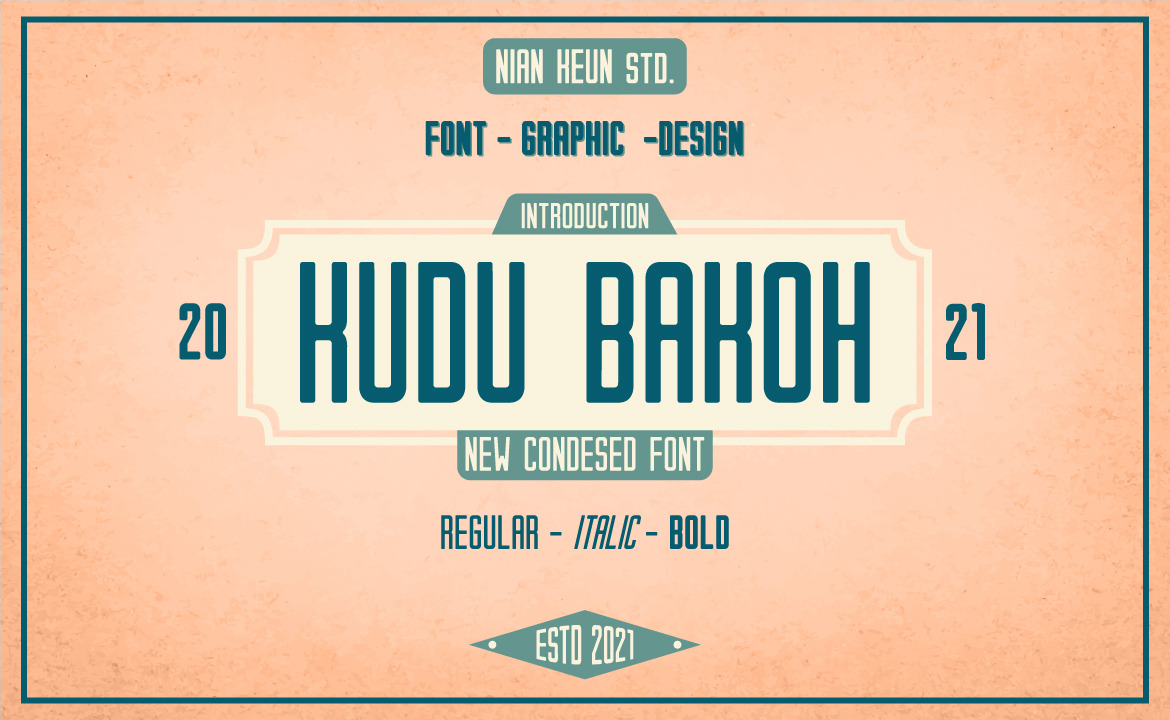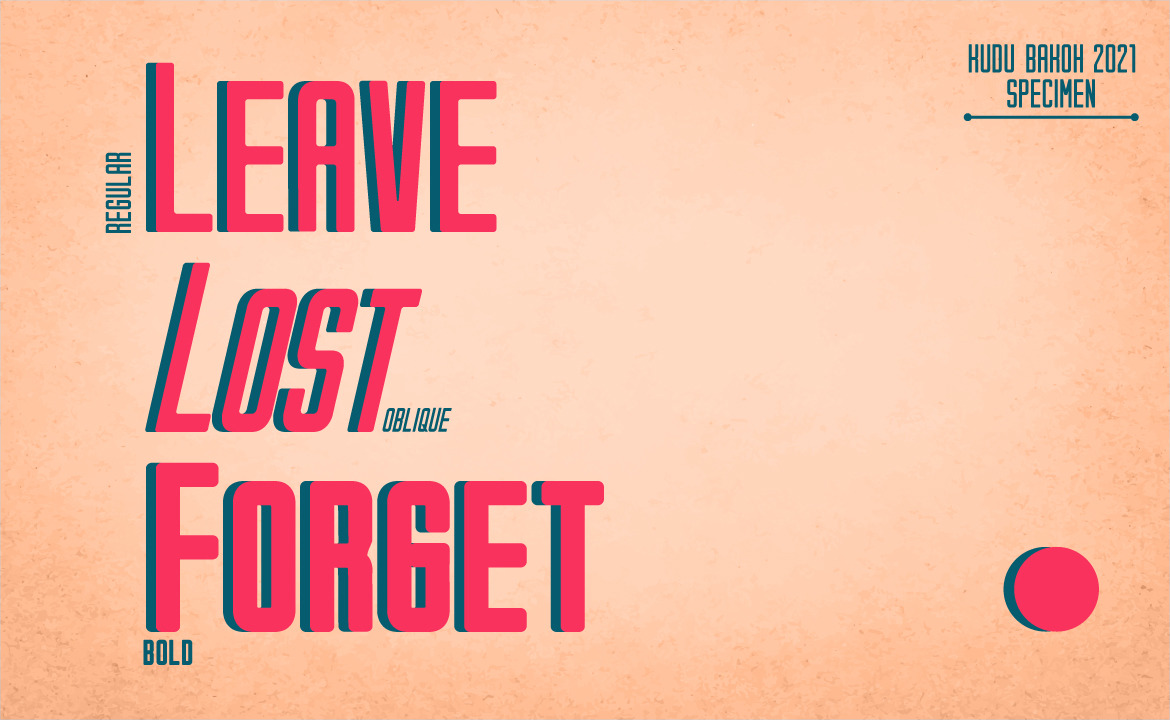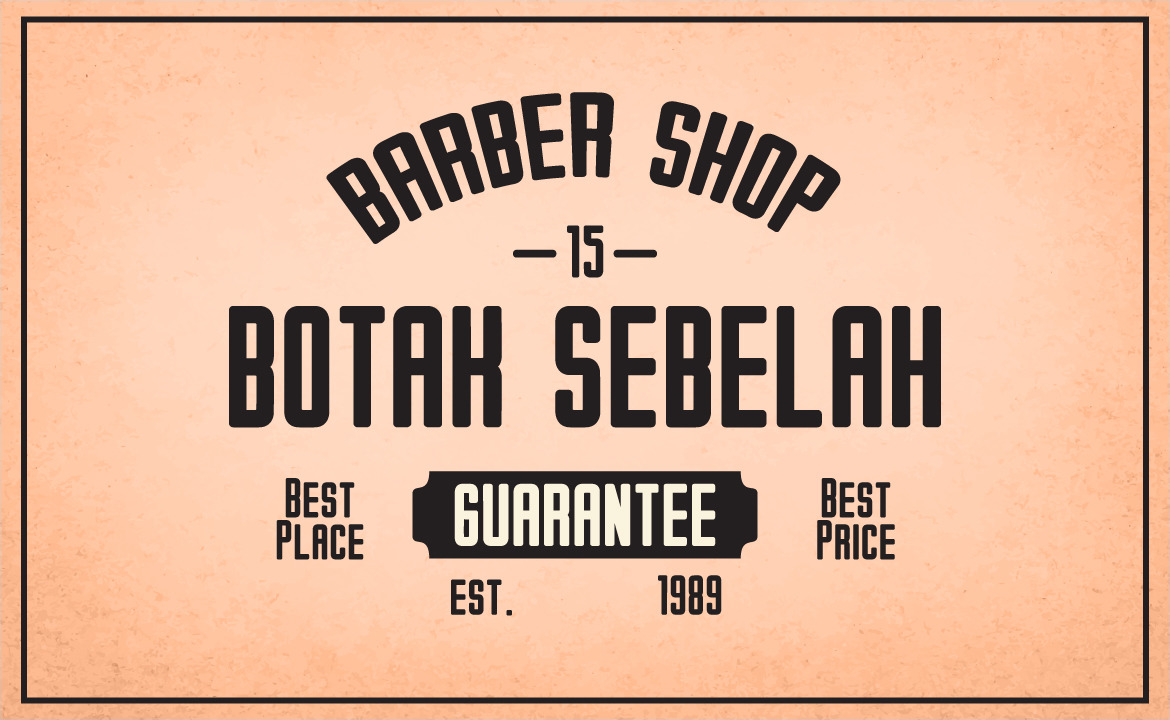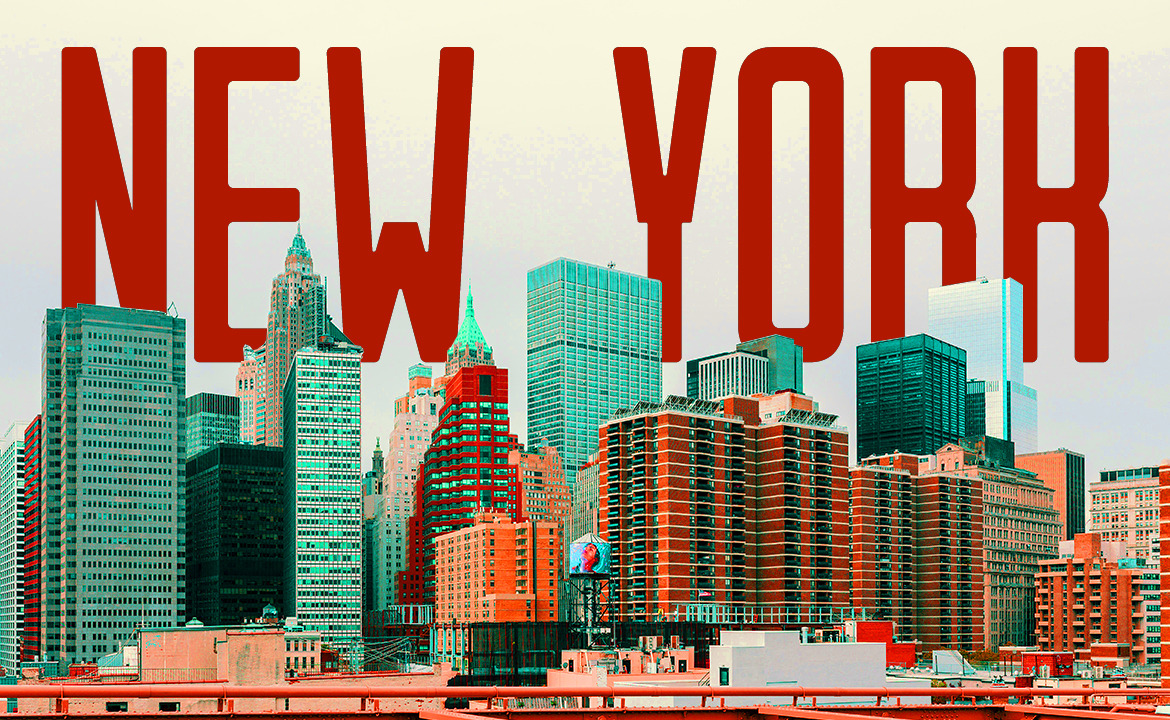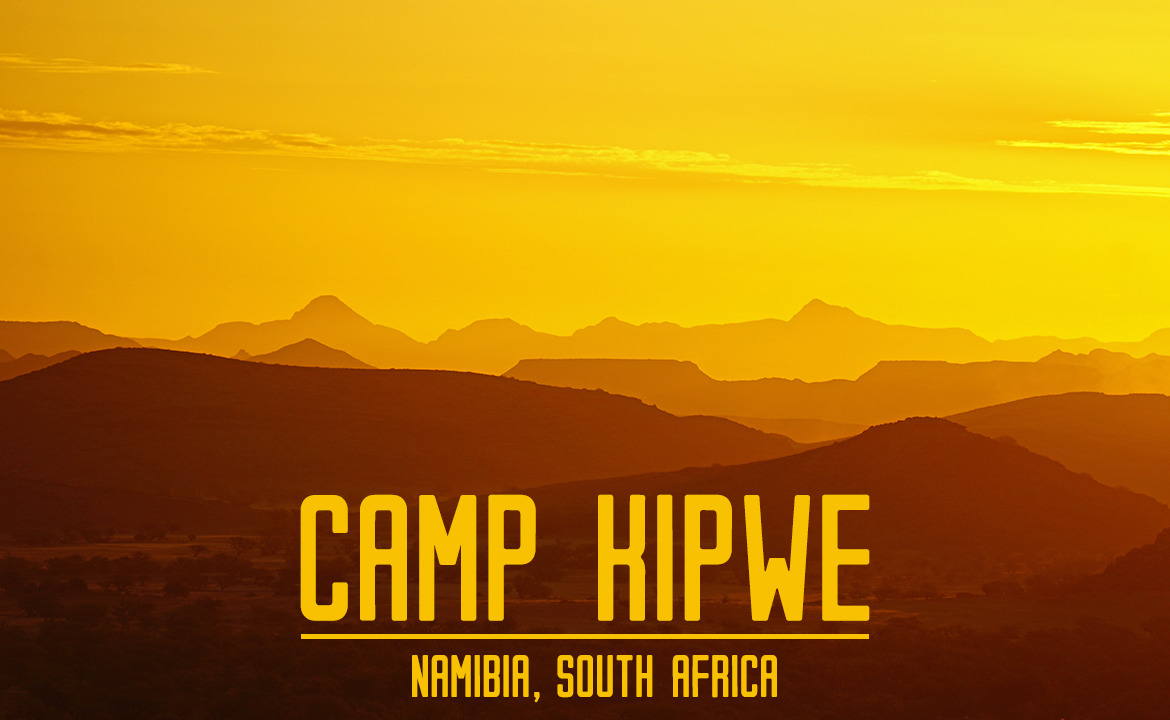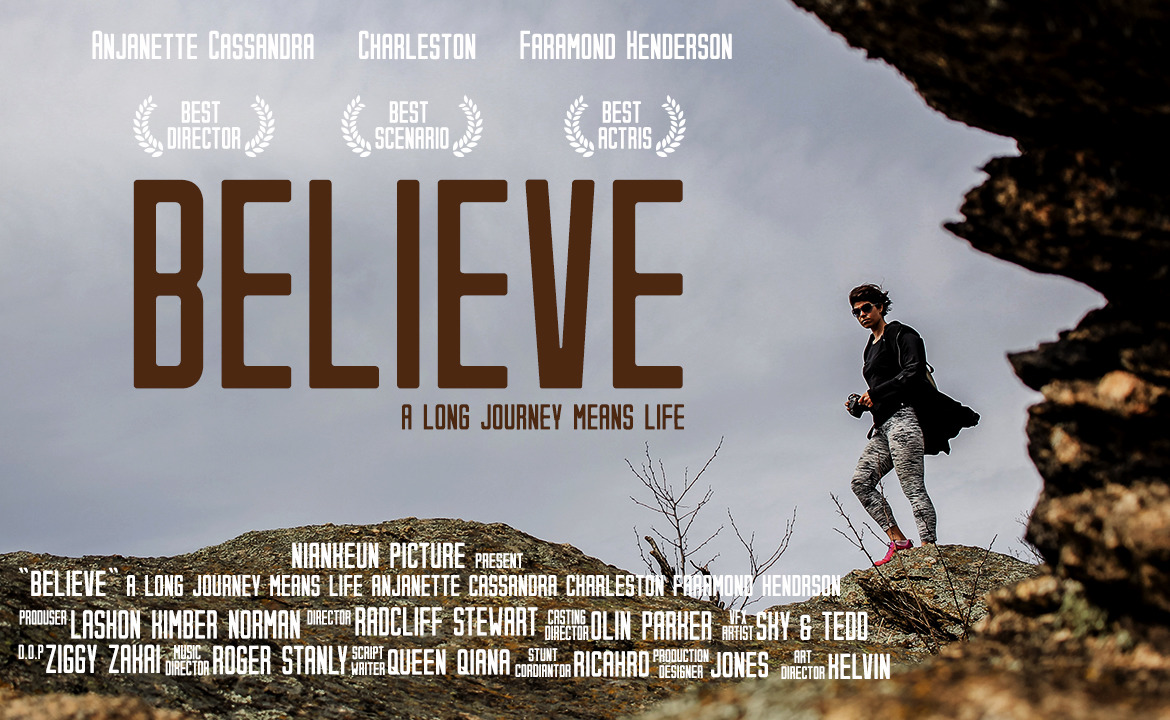
Kudu Bakoh- New Condesed Font
Kudu Bakoh Font is a description of human nature that is strong, firm, and is not afraid to face all obstacles. This font can be used in various media, from graphic design, web, film, to music events